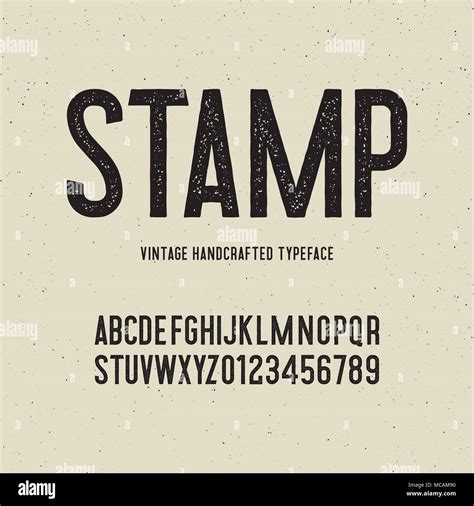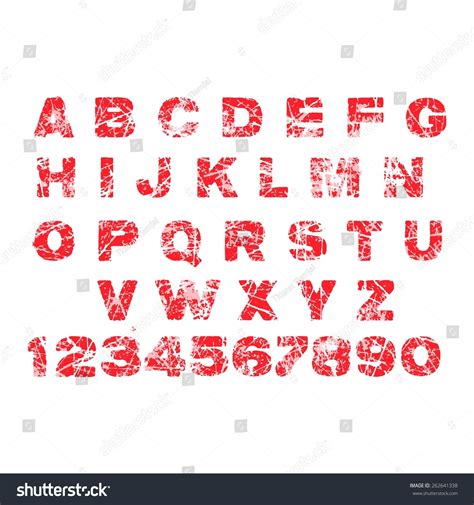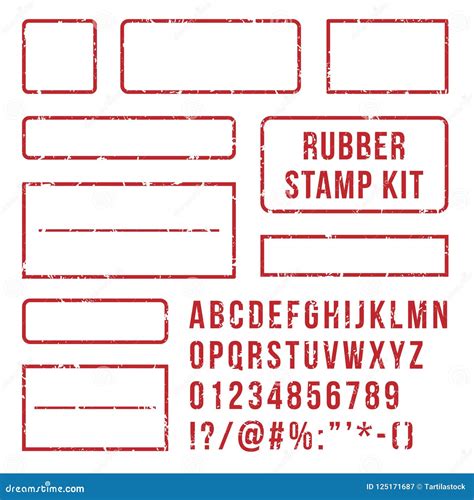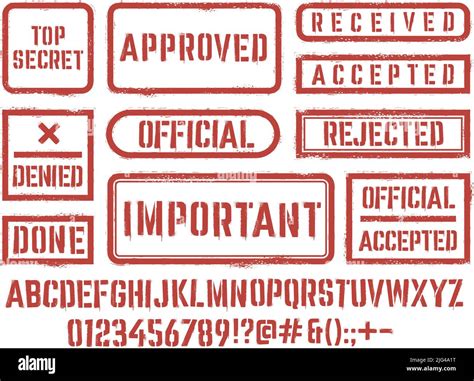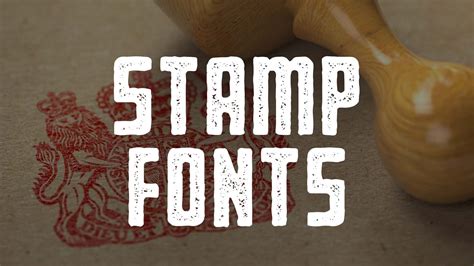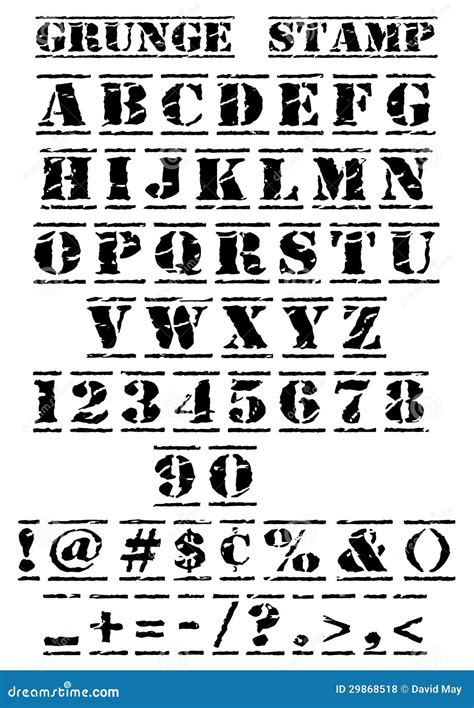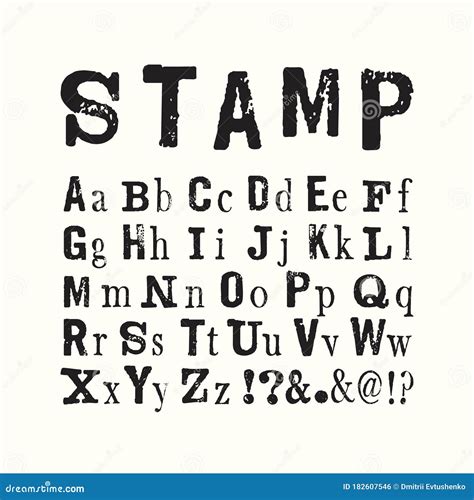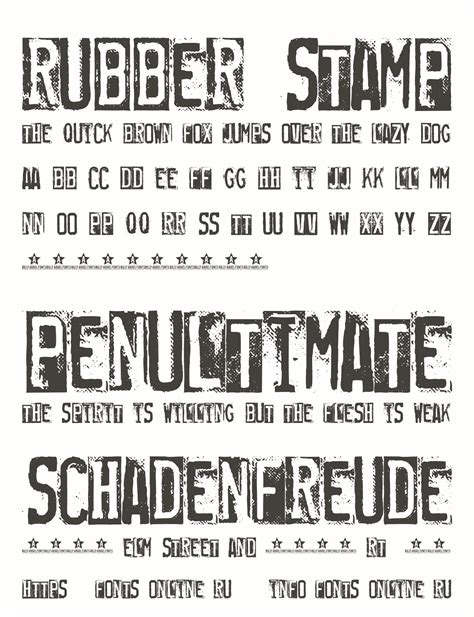
Typography plays a crucial role in design, setting the tone and conveying the message effectively. Among the myriad of fonts available, the Rubber Stamp Font stands out for its unique and nostalgic appeal. This font style mimics the look of traditional rubber stamps, evoking a sense of authenticity and vintage charm. Whether you're designing a retro-themed project, creating invitations, or adding a personal touch to your branding, the Rubber Stamp Font can be a fantastic choice.
Understanding Rubber Stamp Font
The Rubber Stamp Font is characterized by its bold, blocky letters and often includes a distressed or textured appearance to mimic the imperfections of a real rubber stamp. This font style is perfect for adding a tactile, handmade feel to digital designs. Its versatility makes it suitable for a wide range of applications, from wedding invitations to business cards and beyond.
History and Evolution of Rubber Stamp Font
The concept of rubber stamps dates back to the late 19th century when they were used for marking documents and packages. Over time, the design of rubber stamps evolved, and so did their digital counterparts. The Rubber Stamp Font emerged as a digital representation of these traditional tools, allowing designers to incorporate the vintage aesthetic into modern projects.
Applications of Rubber Stamp Font
The Rubber Stamp Font is incredibly versatile and can be used in various design projects. Here are some popular applications:
- Invitations and Greeting Cards: Add a personal touch to wedding invitations, birthday cards, and other special occasion invitations.
- Branding and Logos: Create a unique and memorable logo for a vintage-themed business.
- Packaging Design: Use the font to add a rustic charm to product packaging.
- Print Media: Incorporate the font into posters, flyers, and brochures for a retro look.
- Digital Designs: Enhance websites, social media graphics, and digital advertisements with a vintage feel.
How to Use Rubber Stamp Font in Your Designs
Using the Rubber Stamp Font in your designs can be straightforward. Here are some steps to get you started:
- Choose the Right Font: Select a Rubber Stamp Font that best fits your project’s aesthetic. There are many variations available, so take your time to find the perfect one.
- Pair with Complementary Fonts: Rubber Stamp Fonts often work best when paired with simpler, more modern fonts. This contrast can create a visually appealing design.
- Adjust Size and Spacing: Ensure the font size and letter spacing are appropriate for readability. Rubber Stamp Fonts can sometimes be dense, so adjusting these elements is crucial.
- Add Textures and Effects: Enhance the vintage look by adding textures, distressed effects, or even a subtle background pattern.
- Test and Refine: Always test your design in different contexts to ensure it looks good across various media. Make adjustments as needed to achieve the desired effect.
📝 Note: When using Rubber Stamp Fonts, be mindful of readability. The bold, blocky letters can sometimes be challenging to read, especially at smaller sizes.
Popular Rubber Stamp Fonts
There are numerous Rubber Stamp Fonts available, each with its unique characteristics. Here are some popular options:
| Font Name | Description | Best For |
|---|---|---|
| Rubber Stamp | A classic Rubber Stamp Font with a distressed texture, perfect for vintage designs. | Invitations, packaging, branding |
| Stamp It | A bold and clean Rubber Stamp Font with a modern twist, ideal for contemporary projects. | Logos, digital designs, print media |
| Vintage Stamp | A highly textured Rubber Stamp Font that mimics the look of an old, worn-out stamp. | Retro-themed projects, packaging, invitations |
| Rustic Stamp | A rustic and rugged Rubber Stamp Font with a handmade feel, perfect for adding a personal touch. | Wedding invitations, greeting cards, branding |
Tips for Effective Use of Rubber Stamp Font
To make the most of the Rubber Stamp Font in your designs, consider the following tips:
- Keep It Simple: Avoid overusing the font. It’s best to use it sparingly to maintain its impact.
- Contrast with Modern Fonts: Pair the Rubber Stamp Font with modern, clean fonts to create a balanced design.
- Use High-Quality Images: When incorporating textures or backgrounds, ensure they are high-resolution to maintain clarity.
- Test on Different Devices: Check how your design looks on various devices and screen sizes to ensure consistency.
- Experiment with Colors: While traditional rubber stamps are often black, don’t be afraid to experiment with different colors to add a unique touch.
Inspiration and Examples
Looking for inspiration? Here are some examples of how the Rubber Stamp Font can be used effectively in various projects: